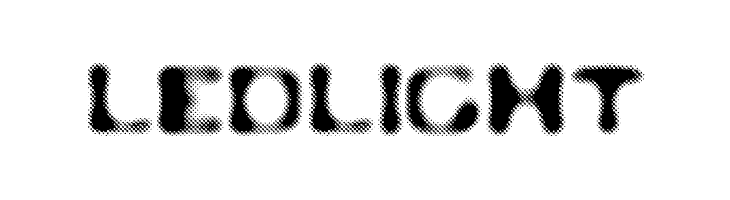
A bold, textured font with a halftone pattern, perfect for striking headlines.
A bold, decorative font with a halftone pattern, ideal for creative projects.